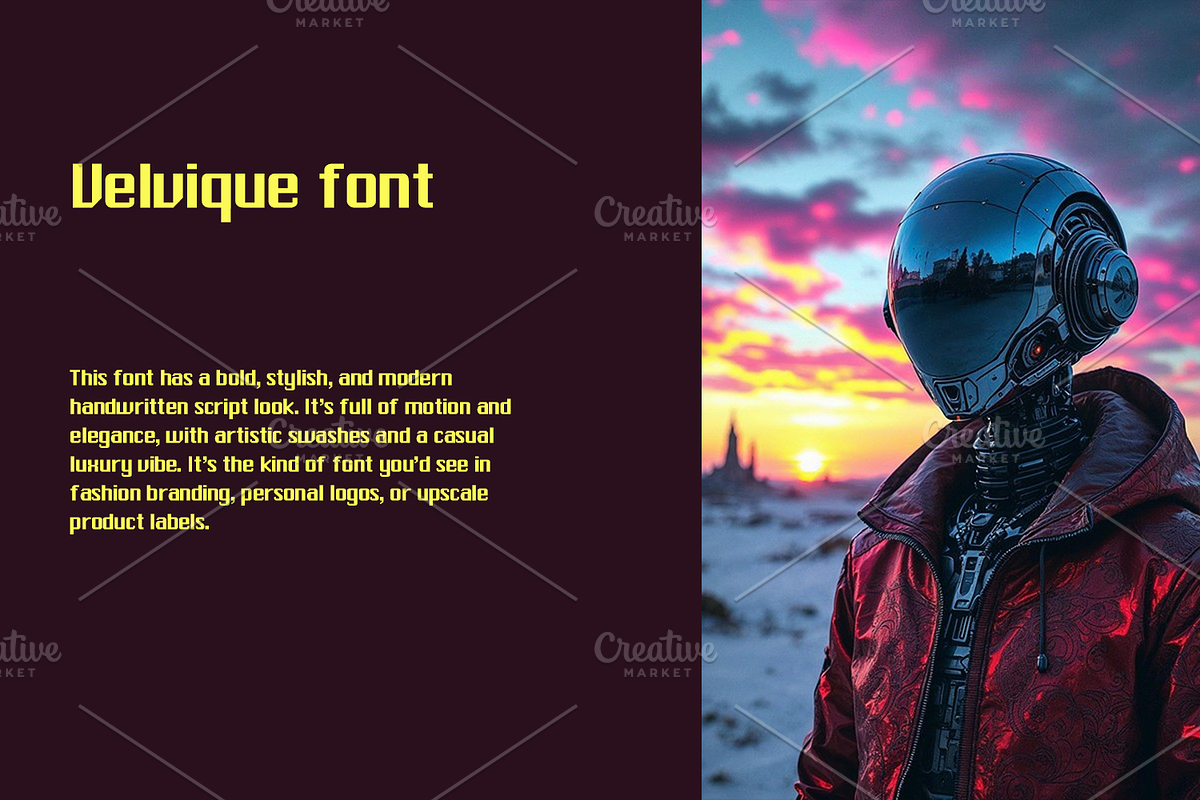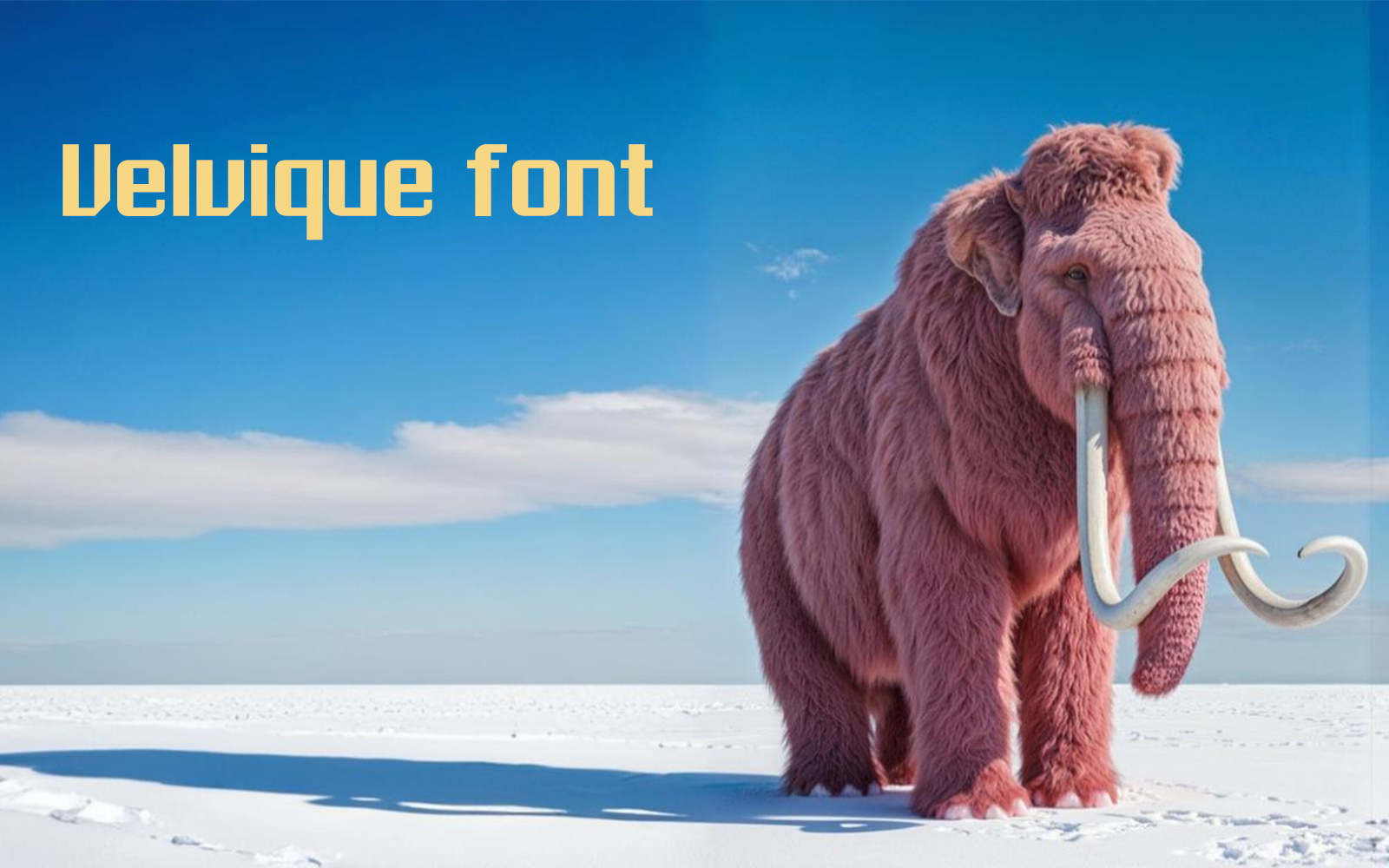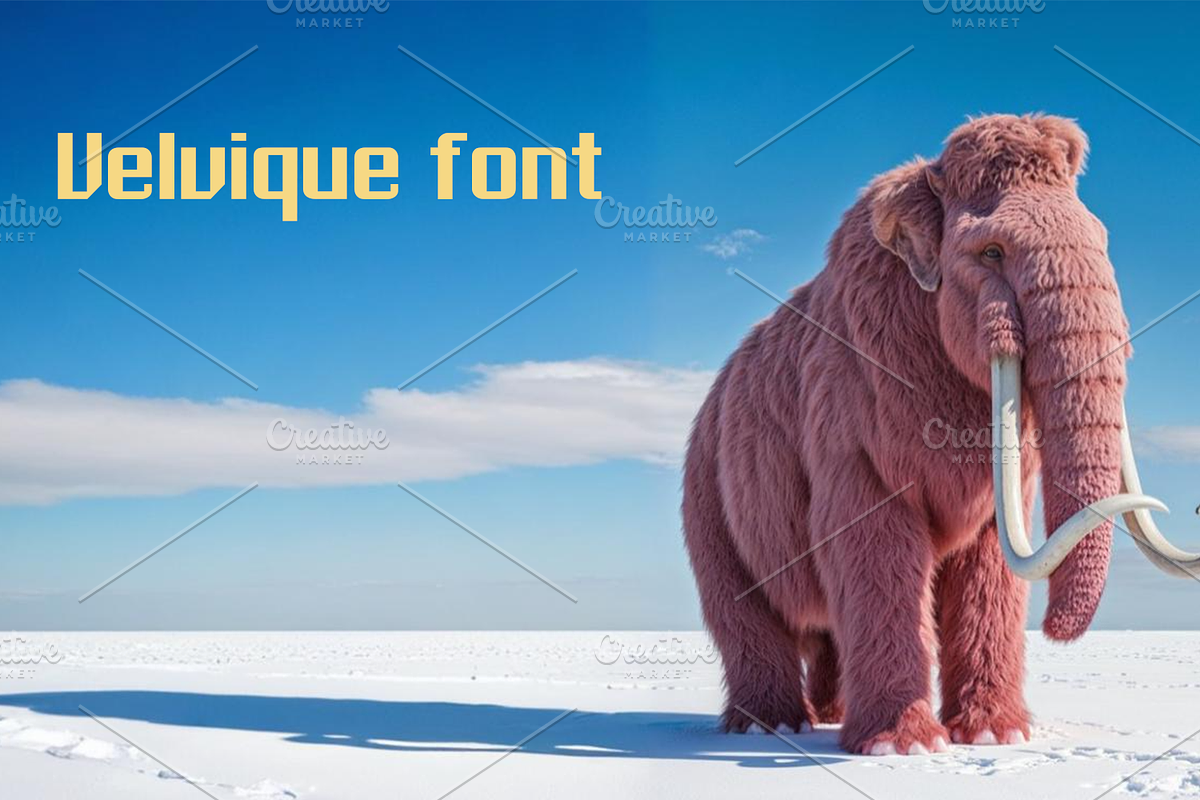
Velvique font-Regular-087-25
Introducing Velvique – where elegance meets expression. With graceful curves and a confident handwritten style, this font adds personality and luxury to every design. Perfect for fashion labels, signature logos, or high-end packaging. Write beautifully. Brand boldly.